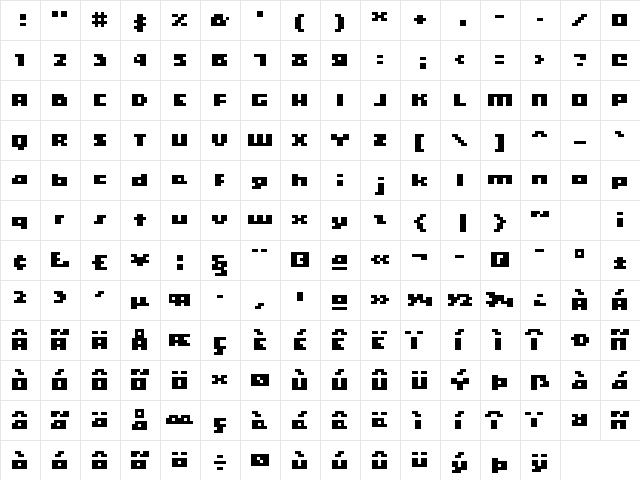
hooge 04_65 Regular Font Preview
hooge 04_65 Regular
hooge 04_65 Regular Font Details
| Designer | Craig Kroeger |
Design Context for hooge 04_65 Typeface
hooge 04_65 offers clean, dependable letterforms without strong stylistic allegiance, making it a practical choice for designers who need flexibility.